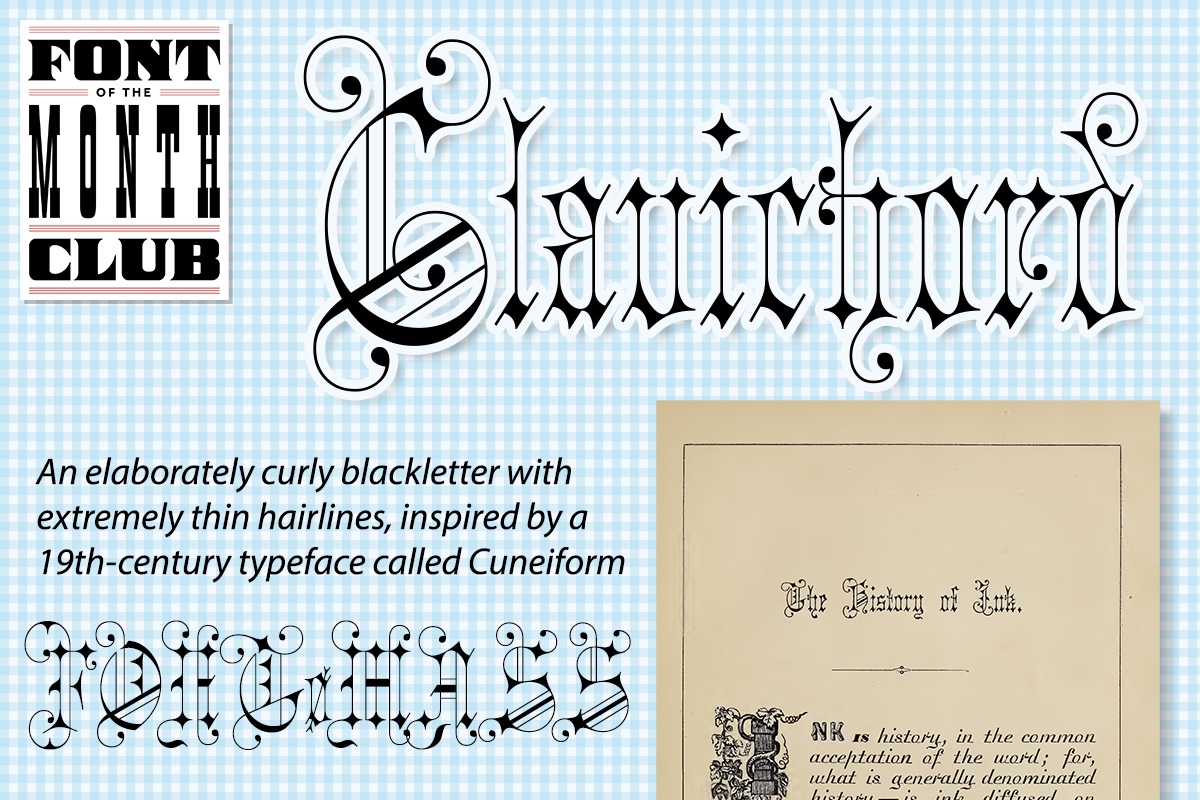
Clavichord Font
Clavichord Font is perfect for classical music branding, baroque concert promotions, historical instrument marketing, period performance materials, classical music education, chamber music venues, early music festivals, and refined cultural advertising campaigns. This harmonious typeface works beautifully in both digital applications and print media where musical elegance and historical authenticity are essential design elements.
What makes Clavichord Font so exciting is its exquisite interpretation of baroque musical tradition through delicate letterforms that seem to resonate with the same gentle precision and intimate expression of the clavichord's tender touch. The font features refined characters with musical proportions, baroque curves, and classical details that evoke the sophisticated chamber music atmosphere of 18th-century salons and the intellectual refinement of early keyboard artistry. Its cultured personality and musical heritage make it ideal for brands seeking to communicate classical authenticity, musical sophistication, and the timeless beauty of historical performance practices while maintaining excellent readability across concert programs and cultural communications.
The Clavichord Font family includes multiple weight variations with different musical intensities, along with baroque alternates and classical ornamental elements. Each style maintains the typeface's musical character while offering comprehensive character sets including classical numerals, baroque punctuation marks, and special symbols designed to enhance musical communications and historical branding efforts across various cultural contexts.
This remarkable typeface represents the perfect harmony between musical tradition and contemporary design functionality for cultural and educational institutions. Whether you're developing classical music venue identities, creating early music festival materials, or designing historical concert promotions, Clavichord Font Free Download provides the musical authenticity and versatility needed to captivate culturally refined audiences. The font's baroque heritage makes it particularly effective for chamber music organizations, historical performance groups, classical music schools, and cultural institutions celebrating the intimate beauty and intellectual depth of early keyboard music.
The carefully crafted musical proportions and optimized classical performance in Clavichord Font ensure both historical authenticity and clear communication across all musical applications. Its refined presence makes it perfect for classical branding, cultural marketing materials, and musical communications where its full baroque character can create emotional connections with audiences who appreciate the delicate artistry and sophisticated elegance of historical keyboard music traditions.